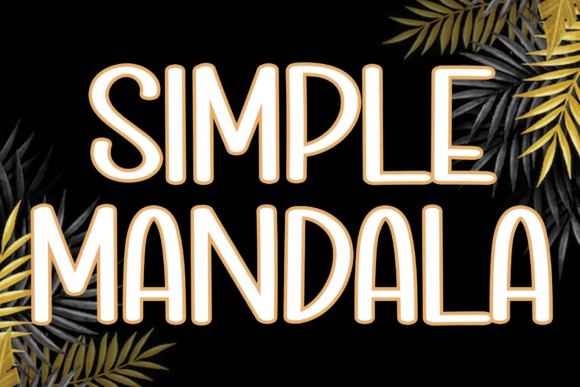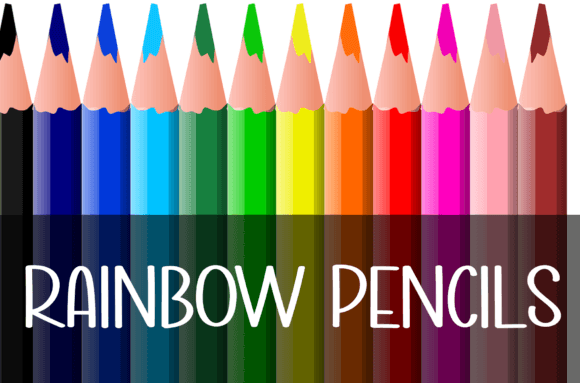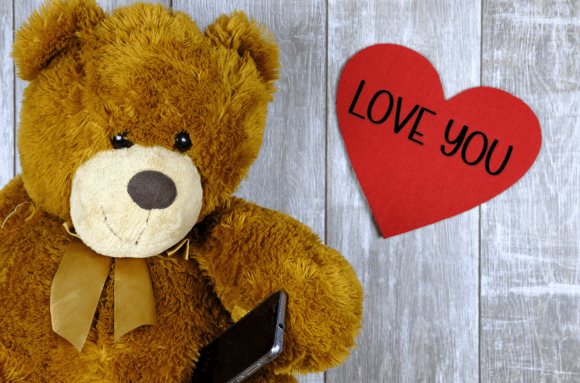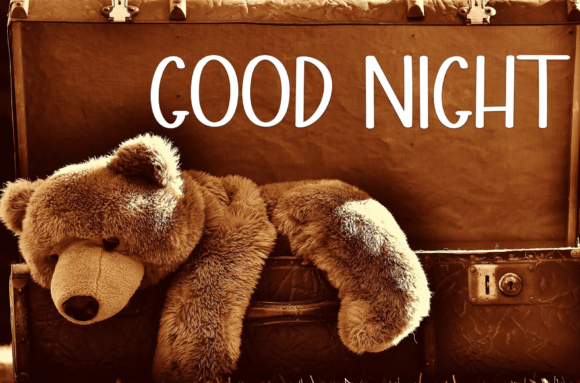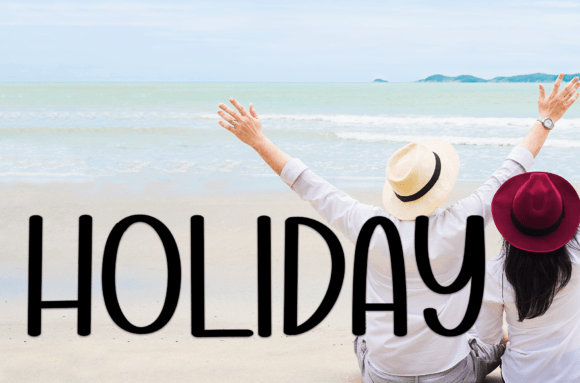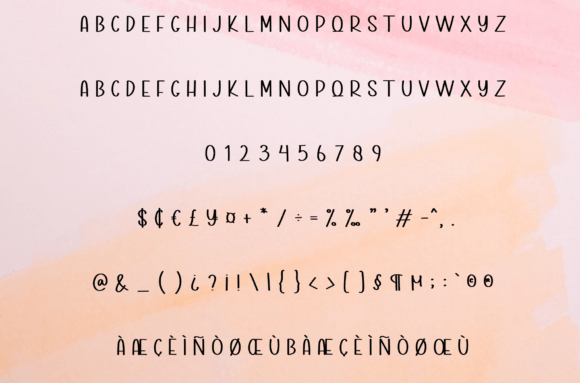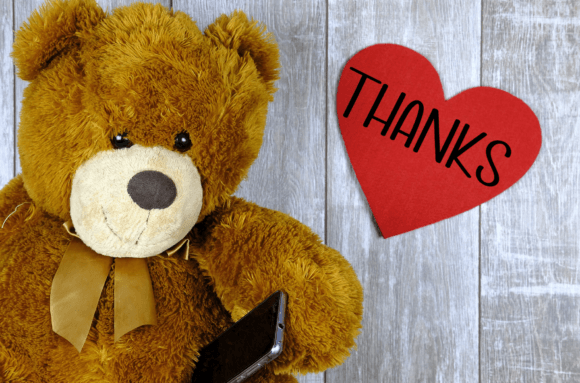
Simple Mandala Font
Add Heartfelt Warmth with Simple Mandala Handwritten Font
The Simple Mandala Handwritten Font is a charming and approachable script designed to bring a joyful, personal feel to your creative work. With its hand-drawn appeal and friendly letterforms, this font is perfect for adding a soft, heartfelt touch to any project.
Whether you’re crafting invitations or designing social media posts, Simple Mandala adds that extra layer of warmth and charm your designs deserve.
Perfect for Wedding Invitations, Cards, and Creative Projects
Simple Mandala is especially well-suited for wedding stationery, greeting cards, quotes, party banners, and DIY crafts. Its fun and relaxed style makes it ideal for both personal and professional use—helping your designs stand out with an inviting and cheerful tone.
This font is also a great fit for branding creative shops, lifestyle blogs, Etsy products, and printables. It delivers the right balance of handcrafted elegance and casual appeal.
A Sweet and Relaxed Script with Natural Flow
The Simple Mandala Handwritten Font stands out thanks to its smooth, natural curves and well-balanced structure. The characters are playful yet refined, maintaining excellent legibility while preserving that hand-lettered feel.
This makes the font easy to read, even at smaller sizes, while still evoking a personal and authentic touch. If you’re looking to give your text a more emotional or cheerful tone, this font is the perfect tool.
Reliable Across Print and Digital Projects
Simple Mandala is designed to look great on both digital screens and print materials. Use it confidently for posters, apparel design, gift tags, branding kits, or website elements—it maintains clarity and style across formats.
To maximize its visual appeal, consider pairing Simple Mandala with a contrasting sans-serif or minimalist serif font. This combination adds structure to your layout while letting the handwritten script serve as the eye-catching focal point.
Why Designers Love Simple Mandala Handwritten Font
Here’s why this font is a favorite in many creative toolkits:
• Friendly, casual handwritten style
• Perfect for cards, invitations, branding, and crafts
• Easy to read and versatile in size
• Works well in both print and digital formats
Give Your Designs a Joyful, Personal Touch
In conclusion, the Simple Mandala Handwritten Font brings sweetness, personality, and versatility to any creative project. Its relaxed flow and heartfelt style make it ideal for designs that aim to connect emotionally with the viewer.